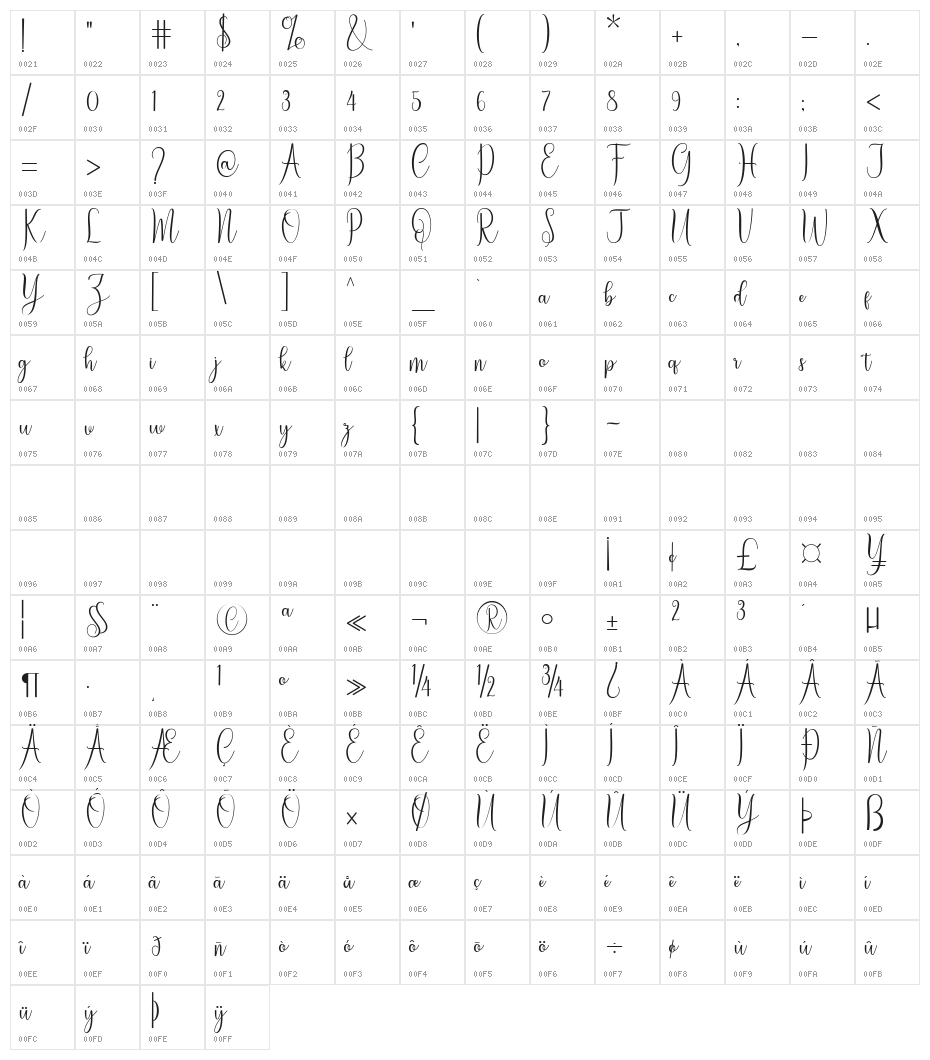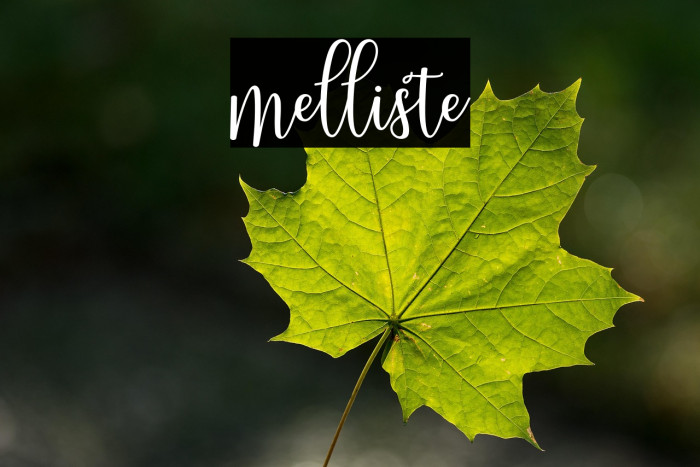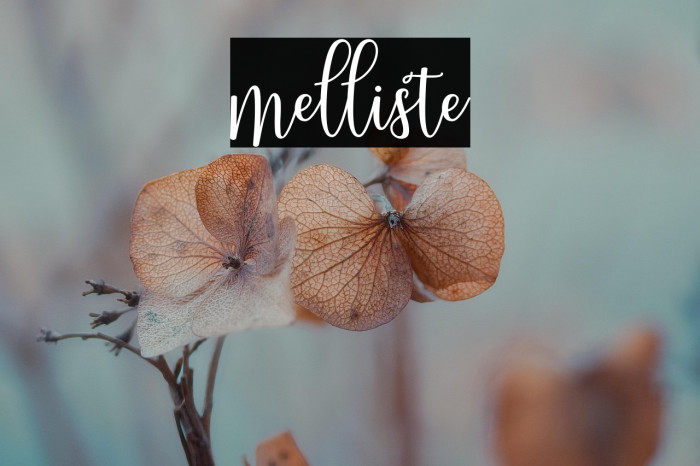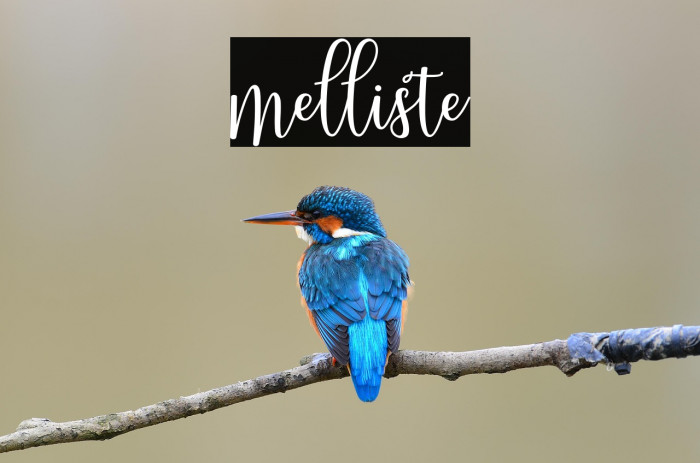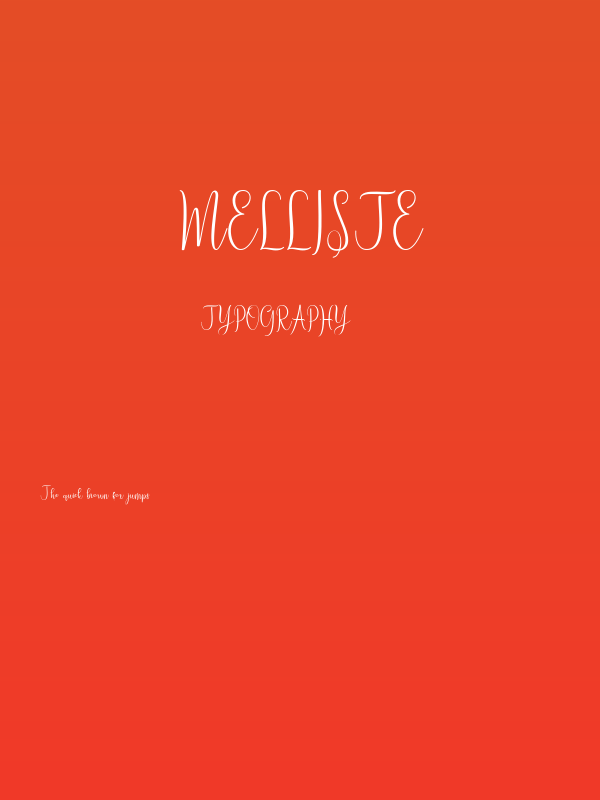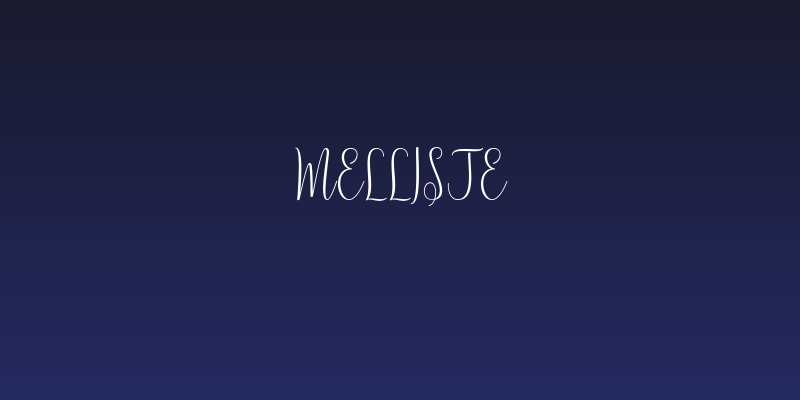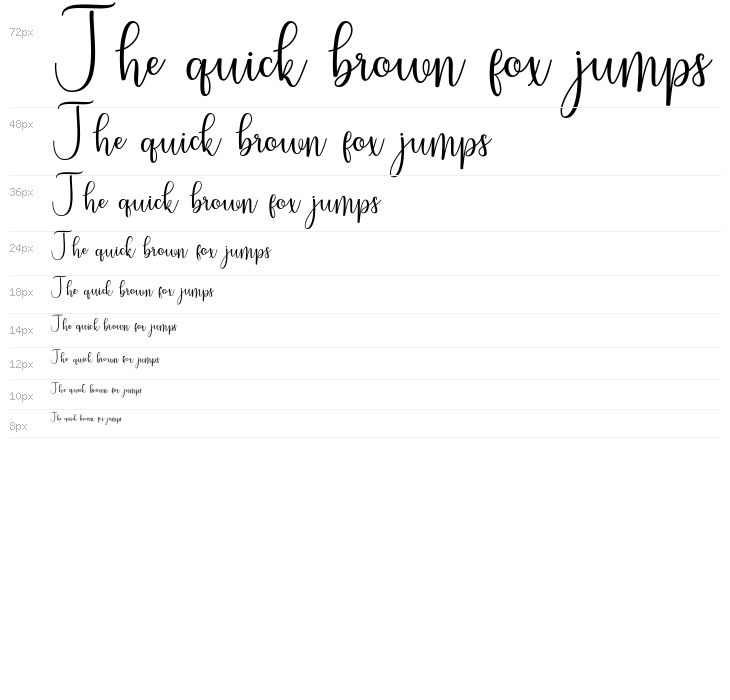
melliste Font
melliste Description
This font features an elegant and flowing script style, characterized by its graceful curves and loops. The uppercase letters are tall and slender, with a distinctive flair that adds a touch of sophistication. The lowercase letters maintain a consistent flow, enhancing readability while retaining an artistic flair. The numerals are well-balanced, complementing the overall aesthetic. Special characters are thoughtfully designed, integrating seamlessly with the rest of the font. This font exudes a sense of elegance and creativity, making it suitable for a variety of design projects.
| Use Case | Headlines, Invitations, Branding |
| Proposed Projects | Ideal for wedding invitations, greeting cards, branding, and elegant packaging. |